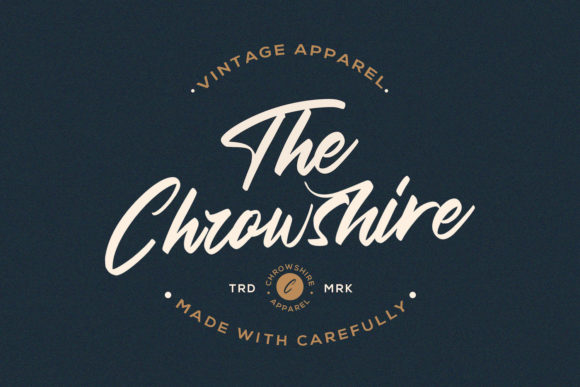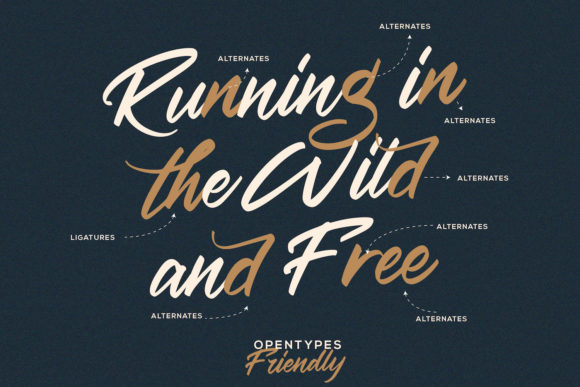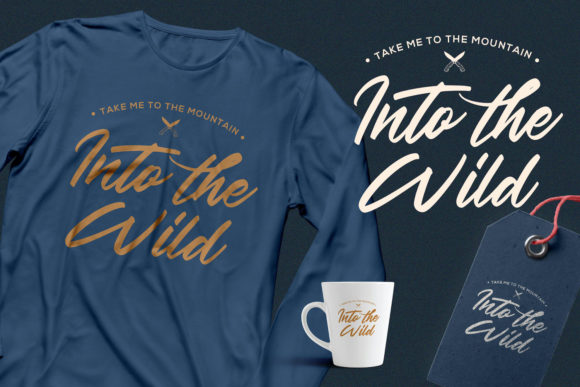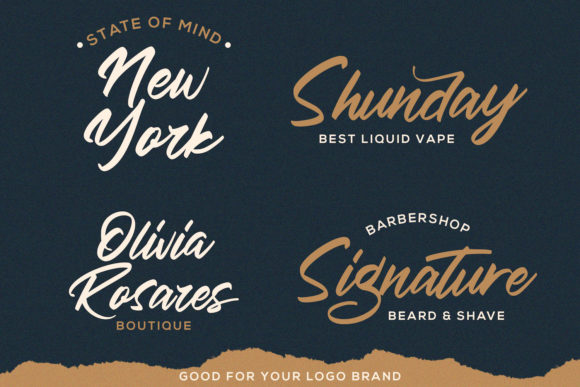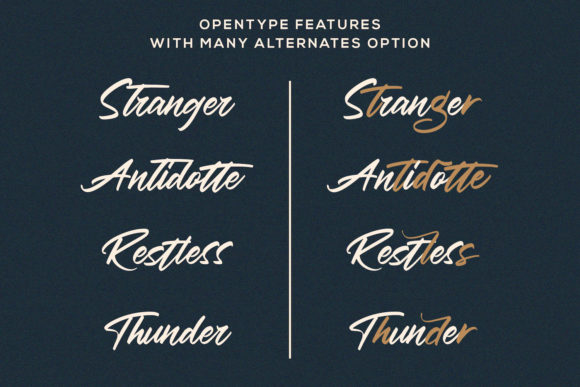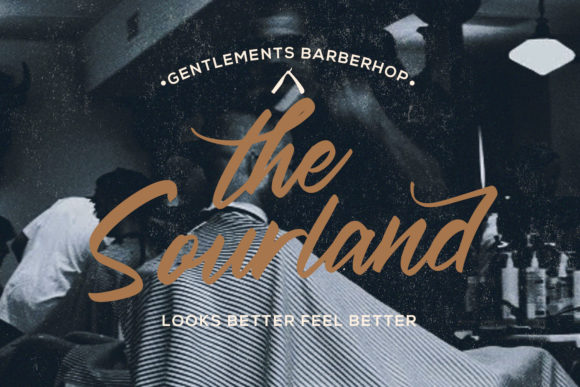
Haredang Font: Elevate Your Designs with Elegance and Timeless Style
In the world of typography, fonts play a crucial role in conveying the message and aesthetic of a design. For designers and crafters seeking a unique and elegant touch, Haredang Font is an exceptional choice. This flowing handwritten font is described by its elegant touch, making it perfect for your favorite projects. In this article, we’ll explore the features and benefits of Haredang Font, and how it can help you create spectacular designs that stand out.
The Distinctive Charm of Haredang Font
Haredang Font boasts an incredibly distinct and timeless style that sets it apart from other fonts. Its flowing handwritten script exudes elegance and sophistication, making it ideal for designs that require a touch of refinement. The font’s unique character is sure to capture the attention of your audience and leave a lasting impression. Whether you’re working on a logo, branding materials, or creative projects, Haredang Font is sure to add a touch of magic to your designs.
Key Features of Haredang Font
- Elegant and Refined: Haredang Font features a smooth, flowing script that adds an air of sophistication to any design.
- Unique and Distinctive: The font’s timeless style sets it apart from other fonts, ensuring your designs stand out from the crowd.
- Handwritten with Love: Haredang Font is crafted with care and attention to detail, giving it a personal and human touch.
- Versatile: Suitable for a wide range of design projects, from logos and branding to invitations, packaging, and more.
Haredang Font offers numerous benefits for designers and crafters, including:
- Easy to Read: The font’s clear and legible script ensures your message is conveyed effectively.
- Highly Versatile: Use Haredang Font across various design projects, from digital to print materials.
- Time-Saving: With Haredang Font, you can create stunning designs quickly and efficiently.
- Unique Designs: The font’s distinctive style helps you create one-of-a-kind designs that reflect your brand’s personality.
Tips for Using Haredang Font
To get the most out of Haredang Font, consider the following tips:
- Pair with Neutral Colors: Combine Haredang Font with neutral colors to create a clean and elegant design.
- Experiment with Sizes: Play with different font sizes to add visual hierarchy and emphasis to your design.
- Use for Headings and Titles: Haredang Font is perfect for headings and titles, adding a touch of sophistication to your design.
In conclusion, Haredang Font is an exceptional choice for designers and crafters seeking a unique and elegant touch for their designs. Its flowing handwritten script, distinctive style, and versatility make it perfect for a wide range of projects. With Haredang Font, you can create spectacular designs that stand out and leave a lasting impression. So why wait? Fall in love with Haredang Font and elevate your designs to new heights!